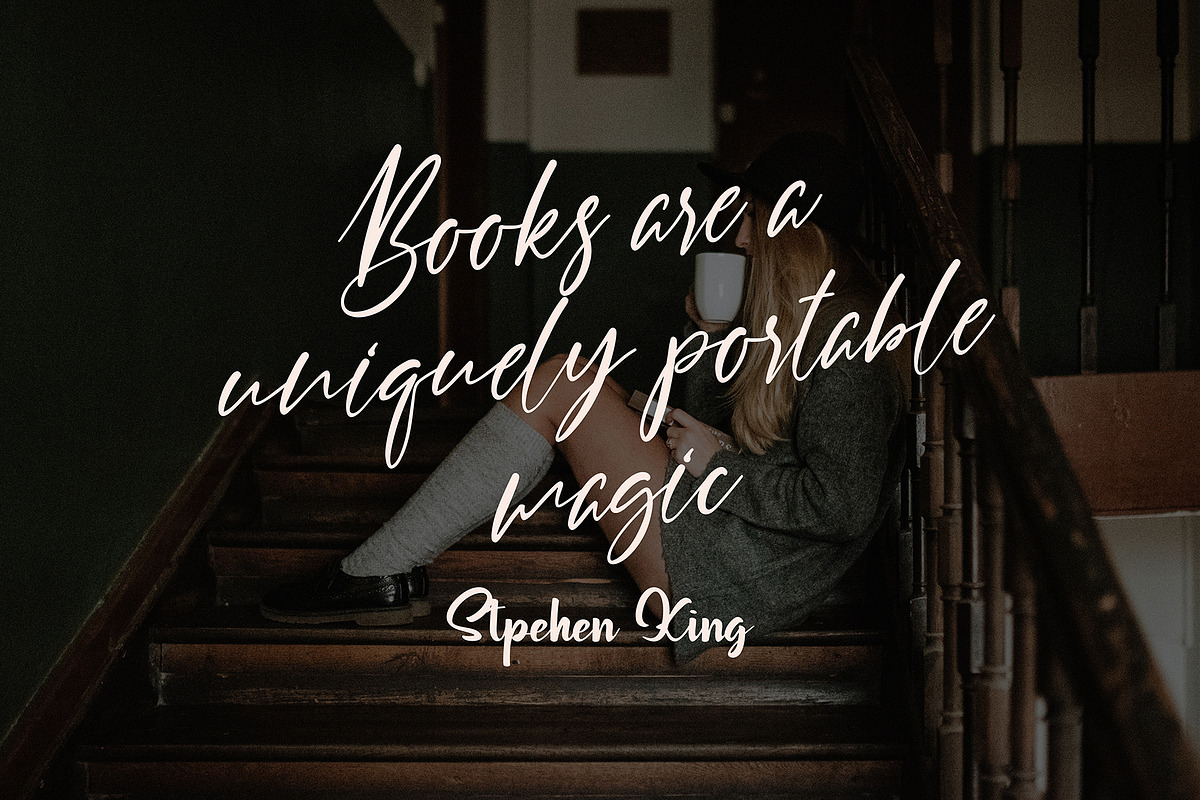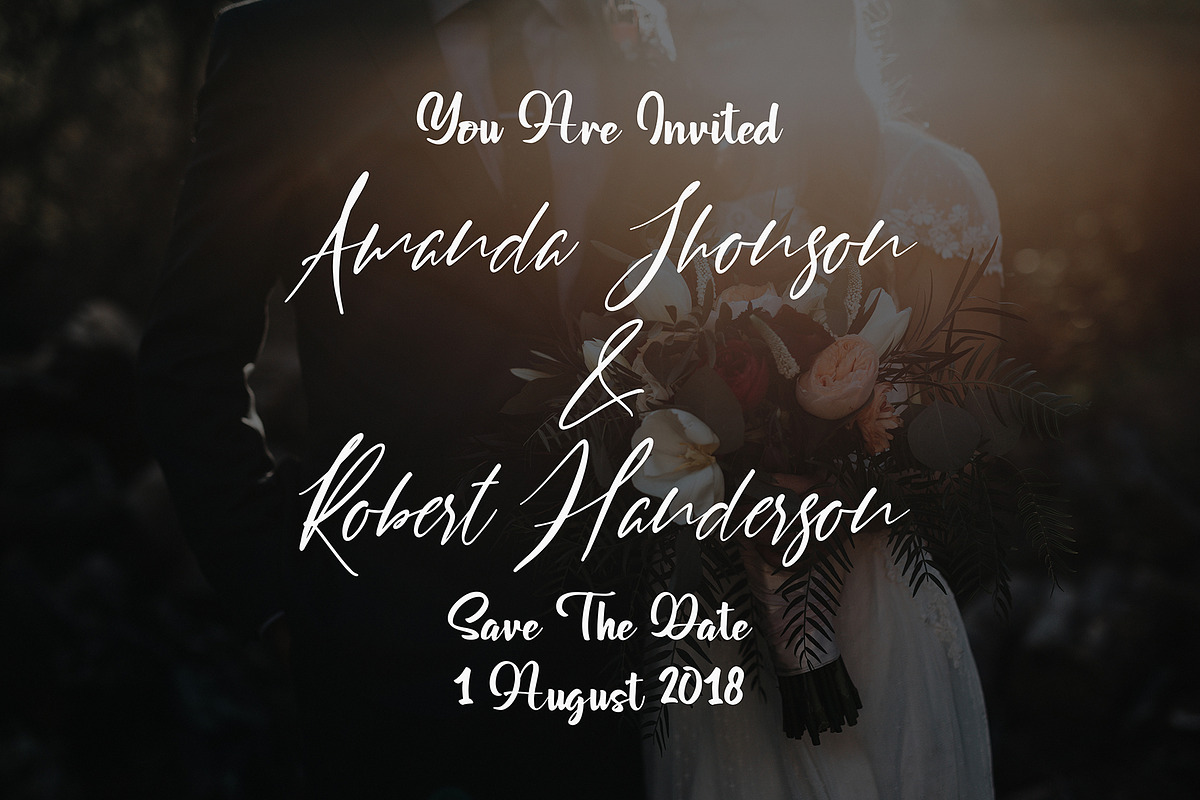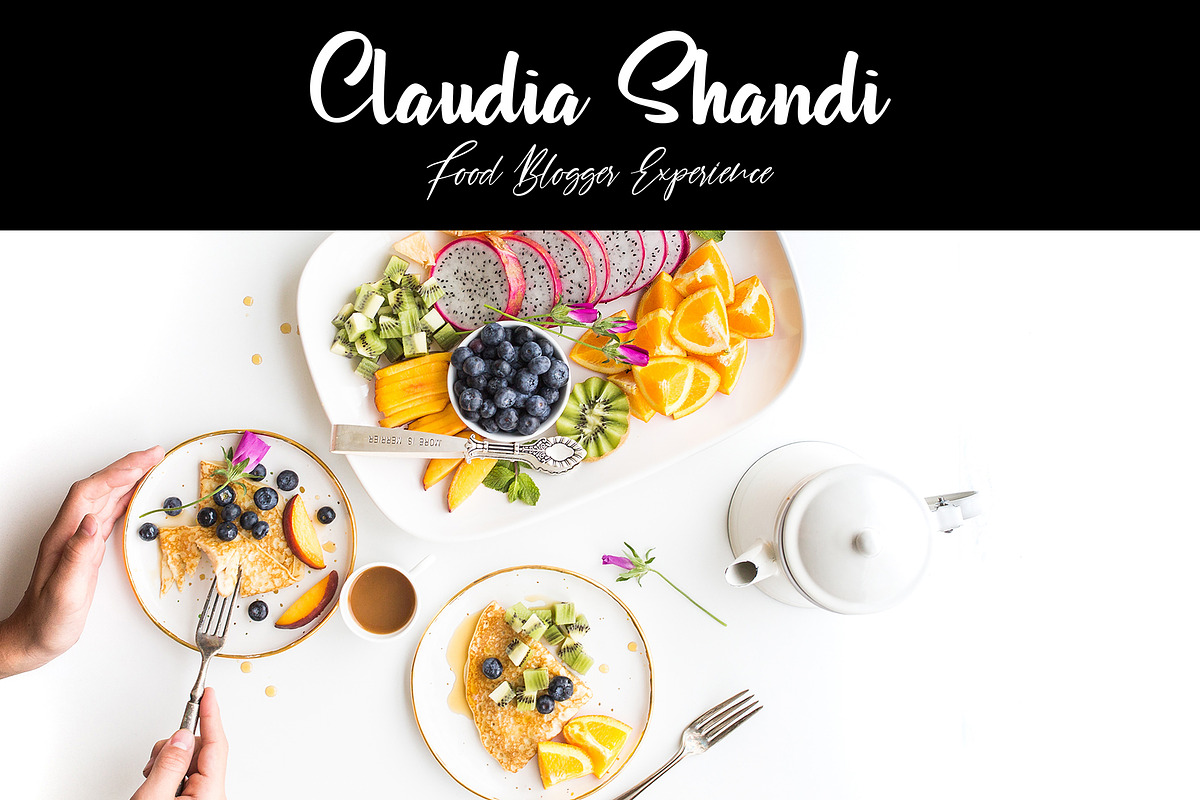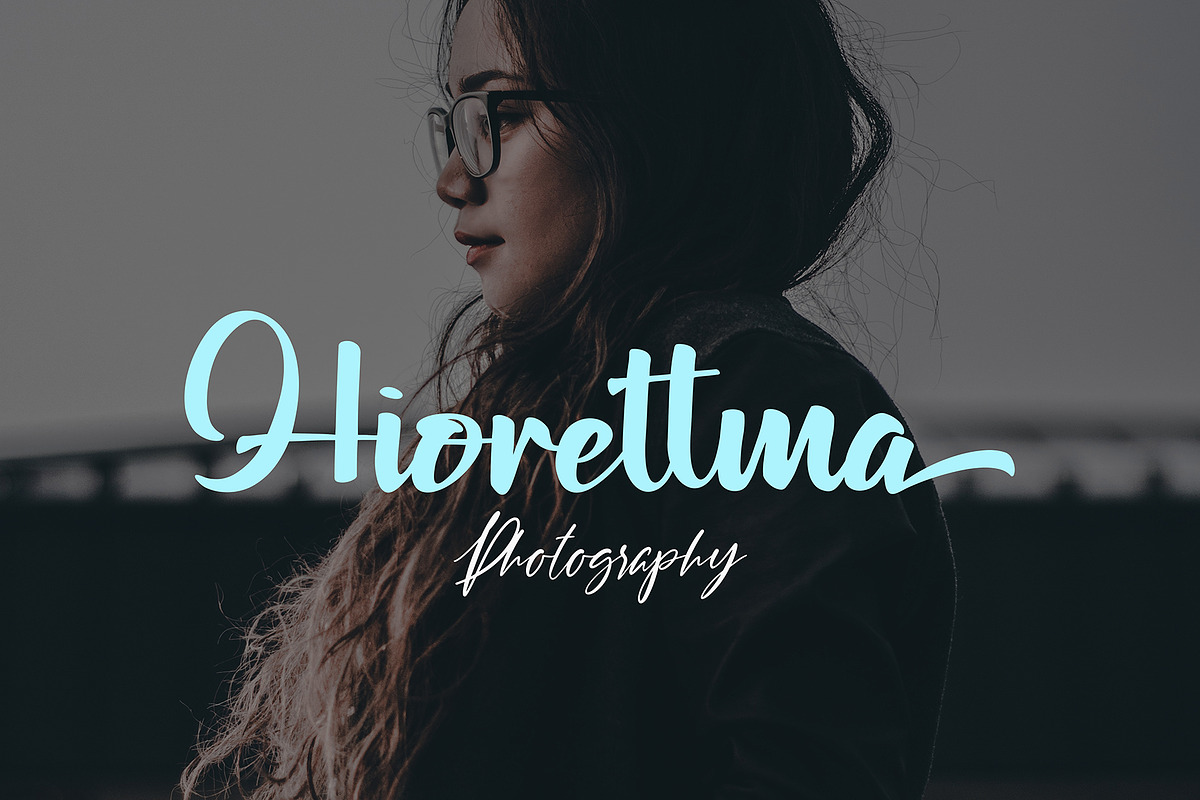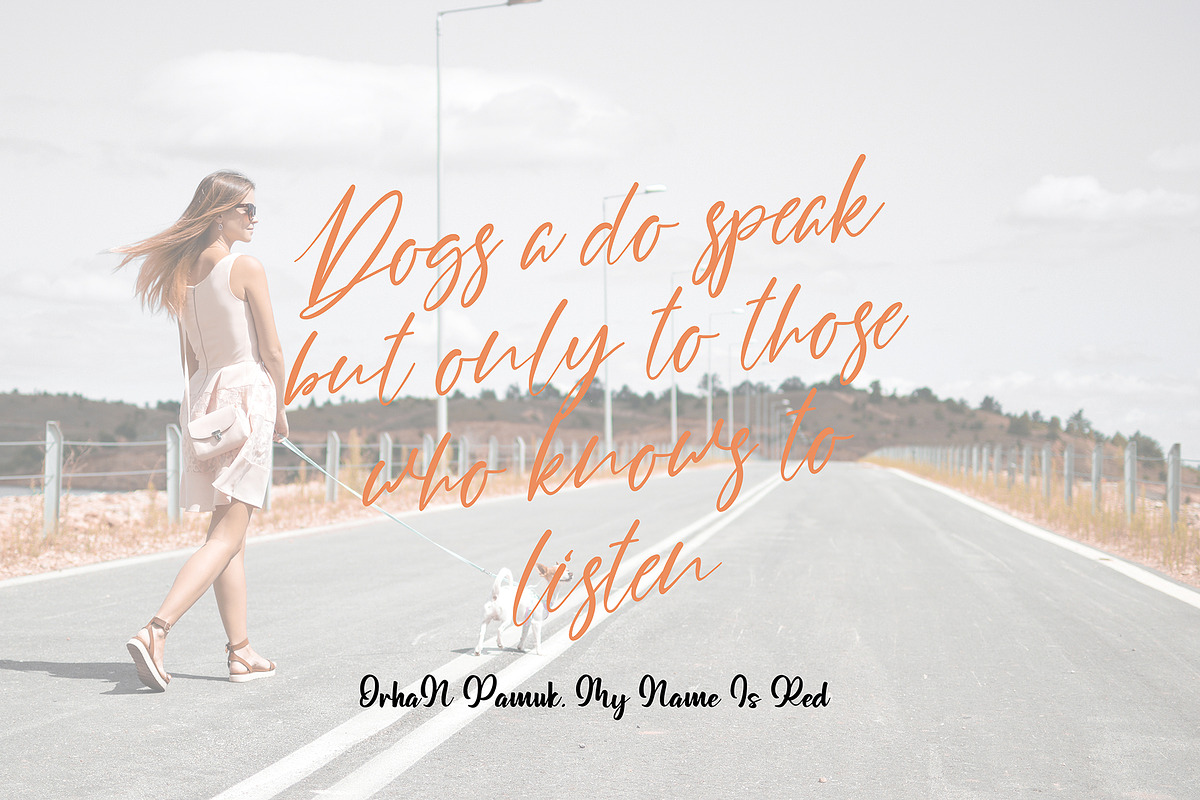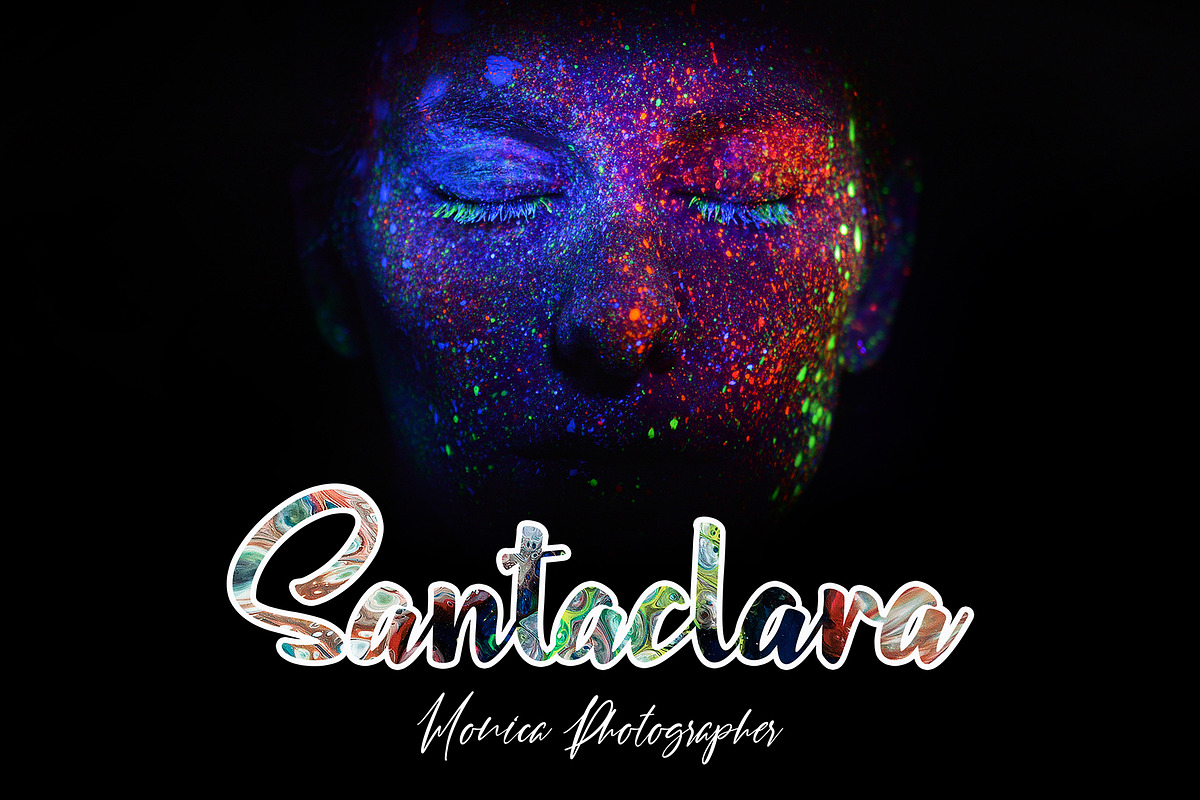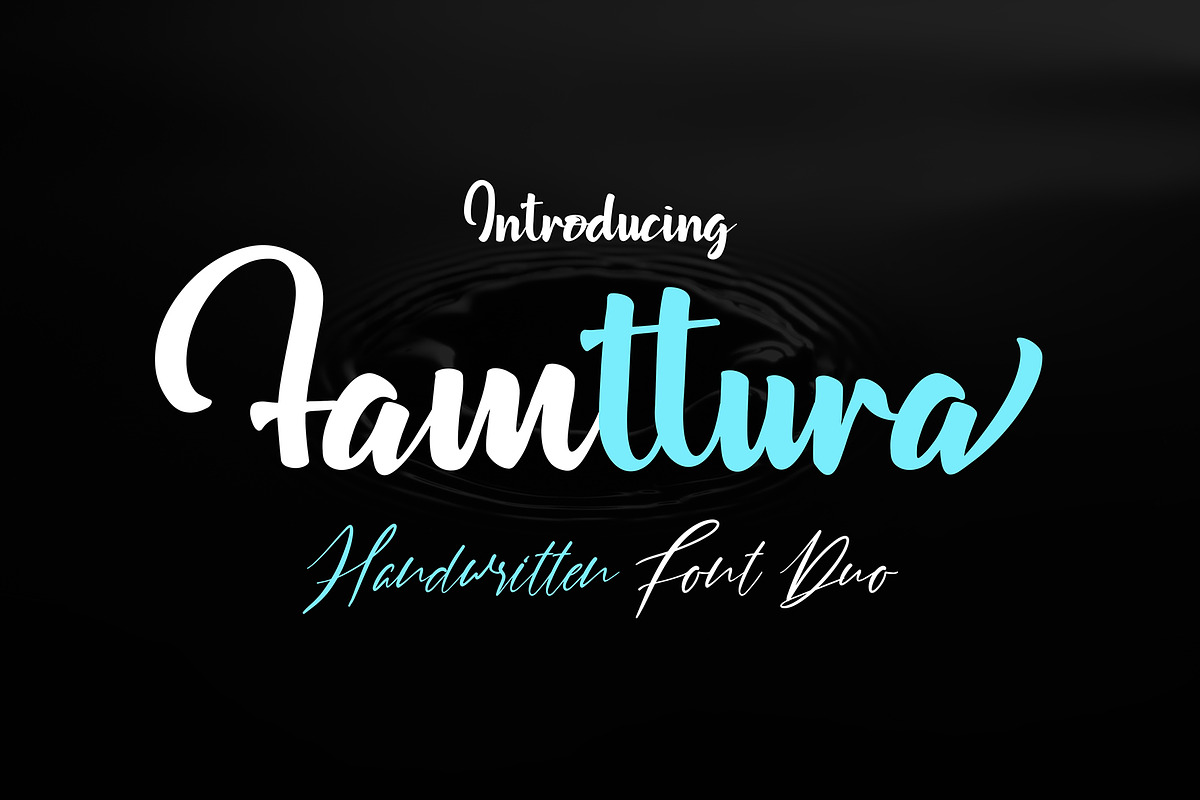
Famttura Font Duo Black Friday
Famttura Font Duo font with new style, this font will perfect for many different project ex: quotes, logo, blog header, poster, banding, fashion, apparel, letter, invitation, stationery, etc...
Why Famttura Font Duo Black Friday is worth a look
Famttura Font Duo Black Friday by MissinkLab Studio fits naturally into Branding, posters, packaging, typography.